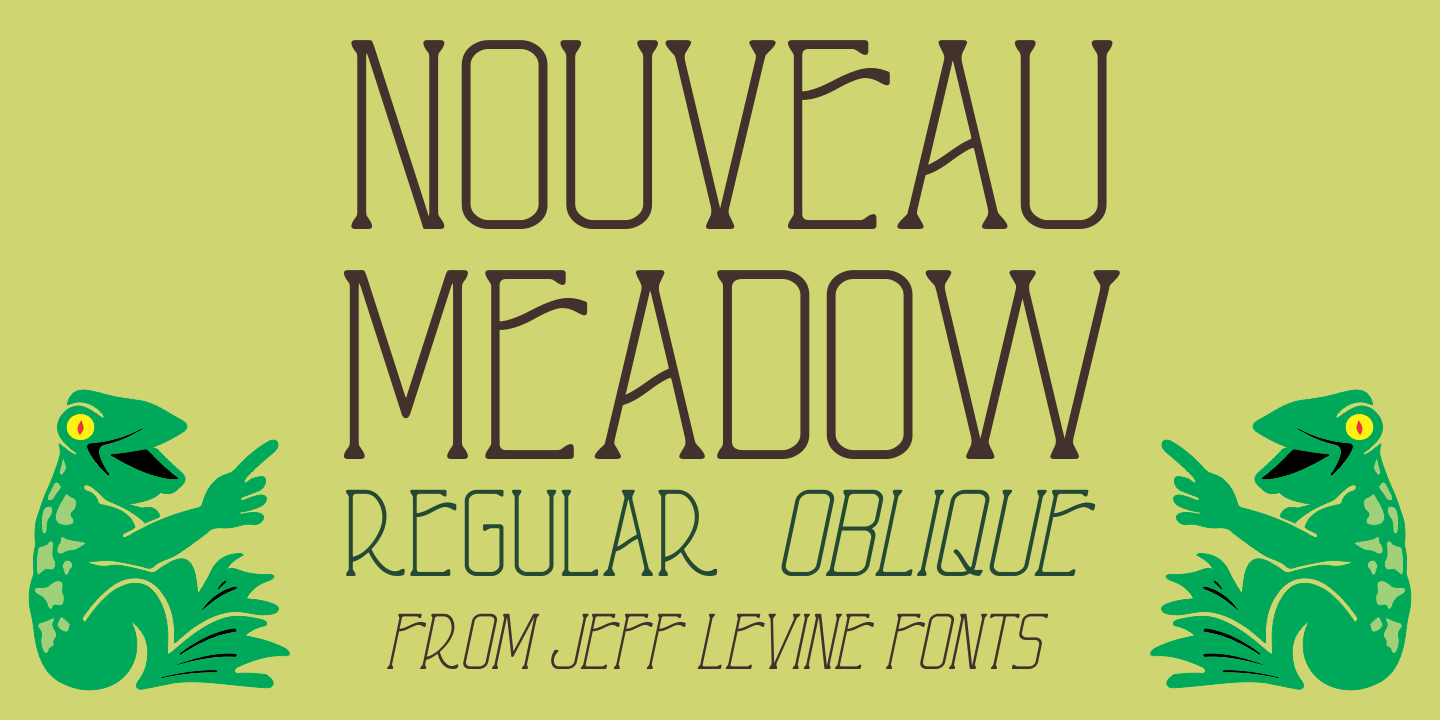
Nouveau Meadow
A poster for the publication “The Quartier Latin – A Magazine Devoted to the Arts” featured the magazine’s name in a light Art Nouveau serif style. The Quartier Latin was published between 1896 and 1899 by the American Art Association of Paris.
This is now available as Nouveau Meadow JNL in both regular and oblique versions.